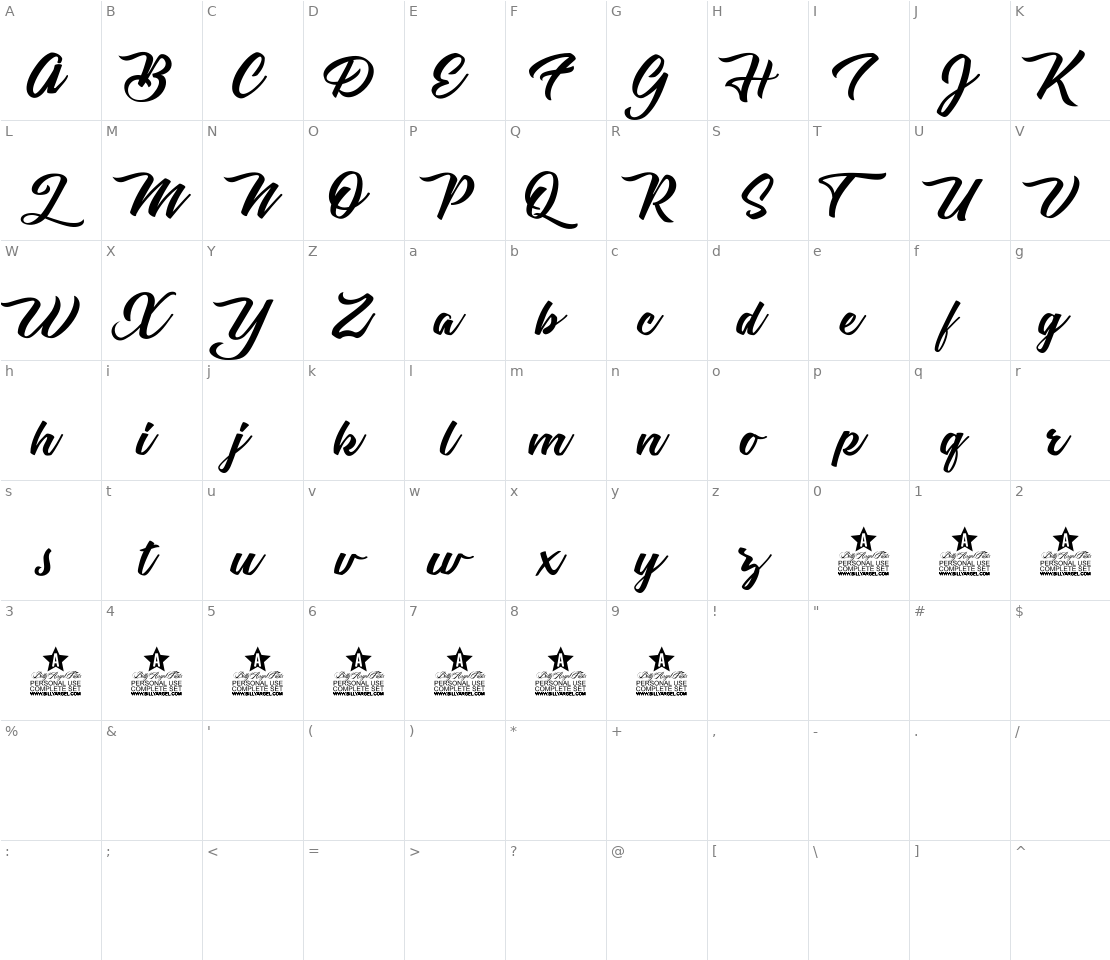
Carpenters
Carpenters is a bold brush script from Billy Argel with thick, confident strokes that feel like they were laid down in one quick pass with a wide flat brush. The hand-lettered energy is loose but controlled, giving it a casual warmth that works naturally for signage, packaging, and headlines where you want something that reads as genuinely handmade rather than digitally smoothed out.